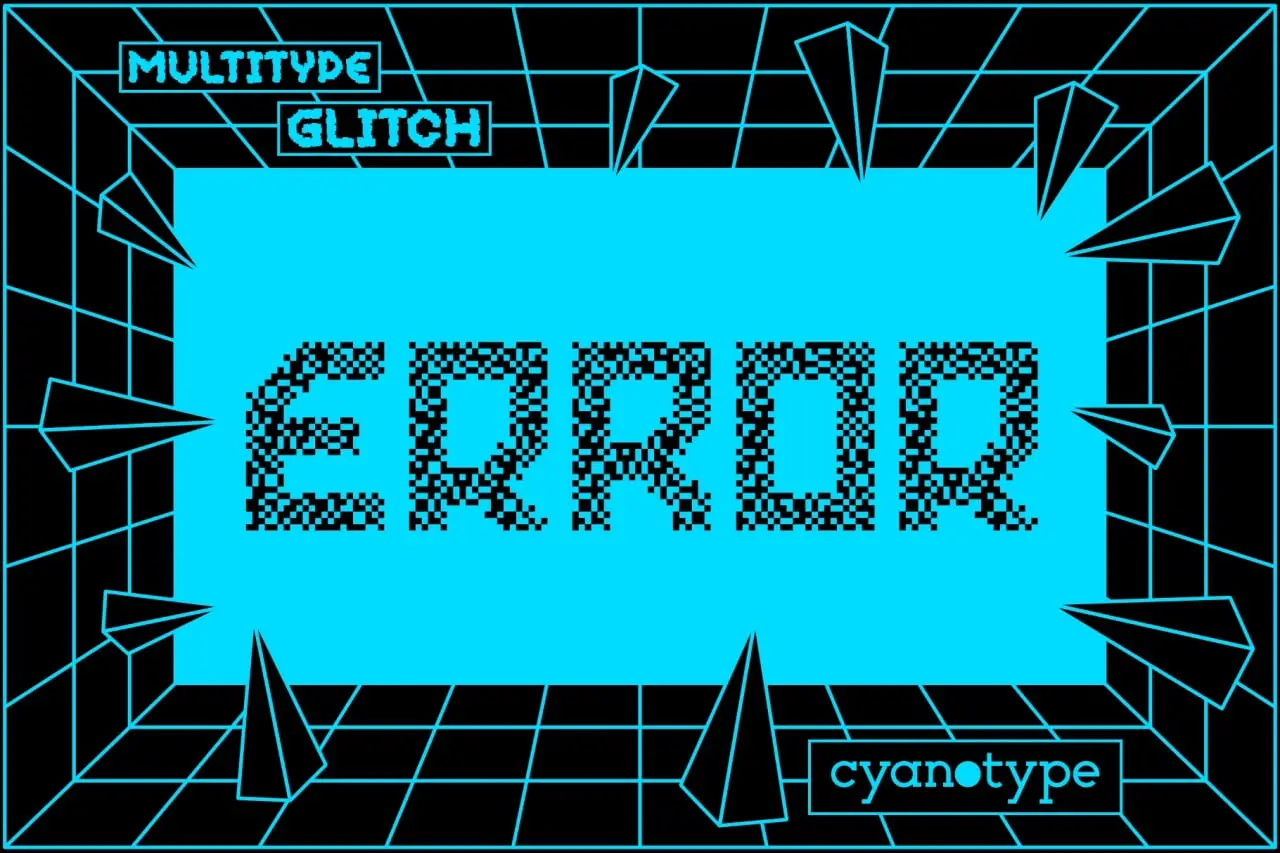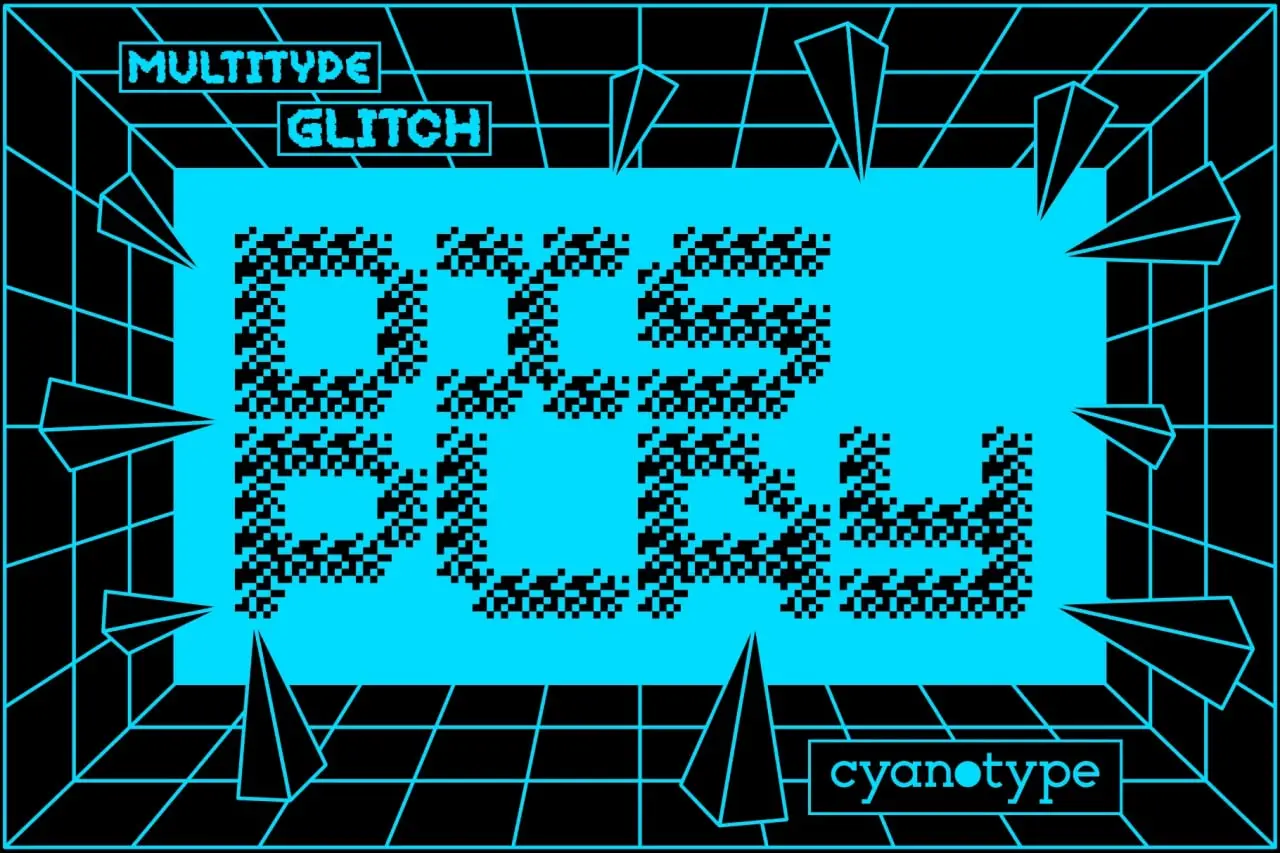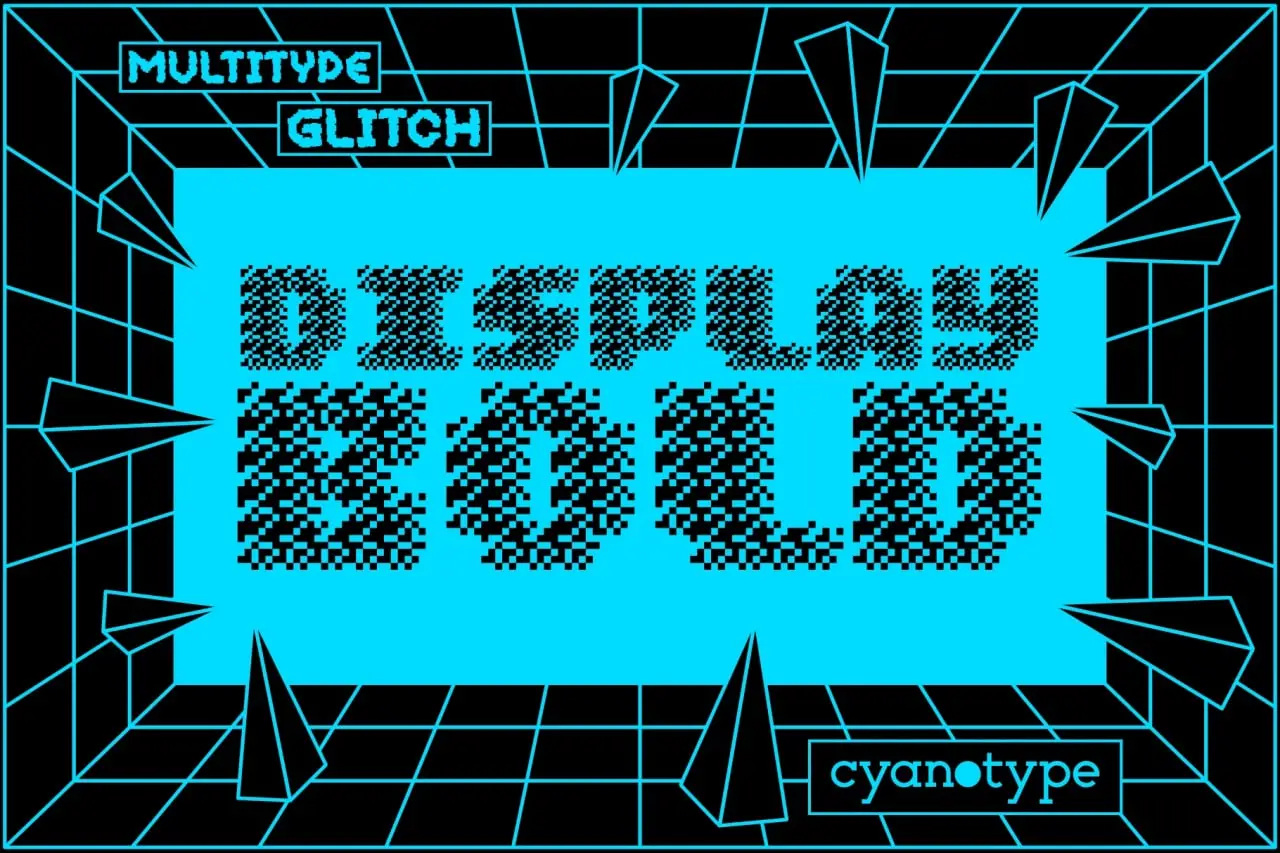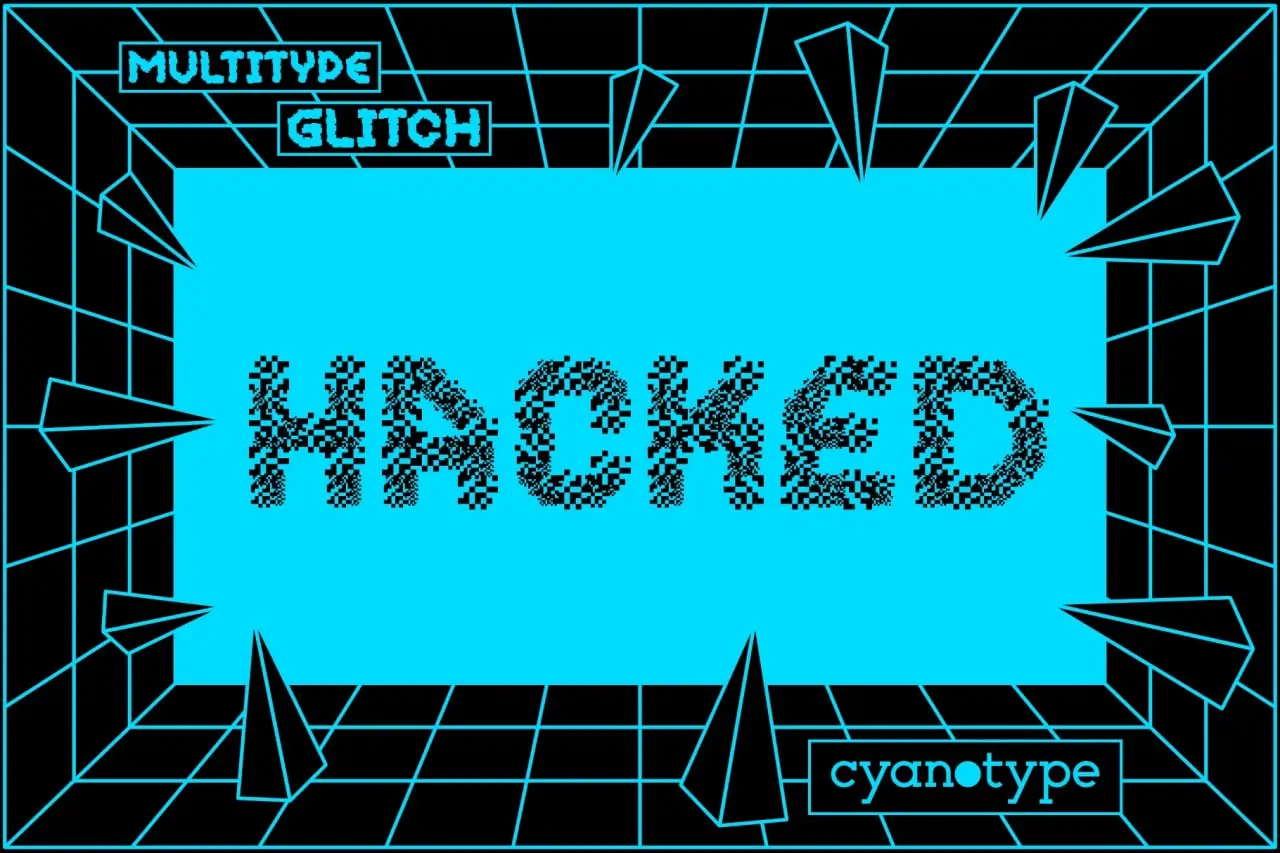
Multitype Glitch Font Cyrillic By Damián Guerrero ( Cyanotype )
The Multitype Glitch Font is a unique typeface designed by Damián Guerrero, featuring a striking Cyrillic character set. This font captures the essence of glitch art, making it perfect for creative projects that require a modern and edgy aesthetic.
• Stylish glitch-inspired design
• Complete Cyrillic character set
Ideal for branding, logos, web design, and print materials, this font adds a contemporary touch to any project.